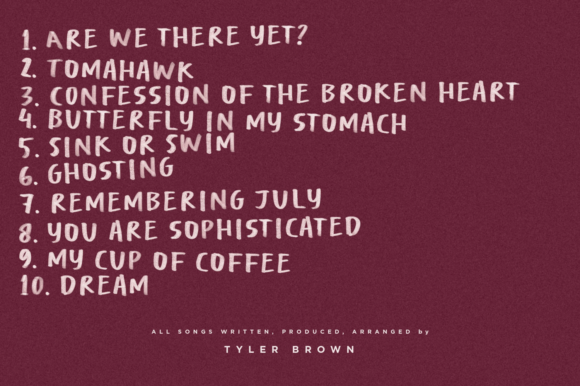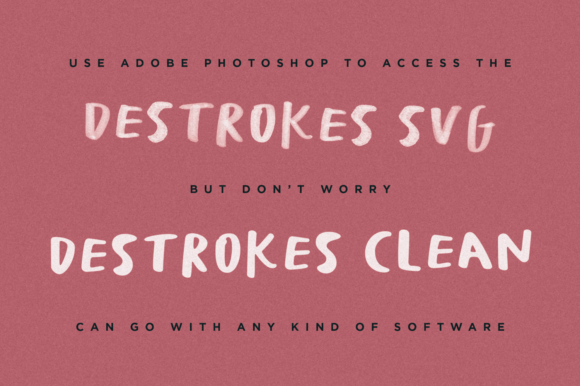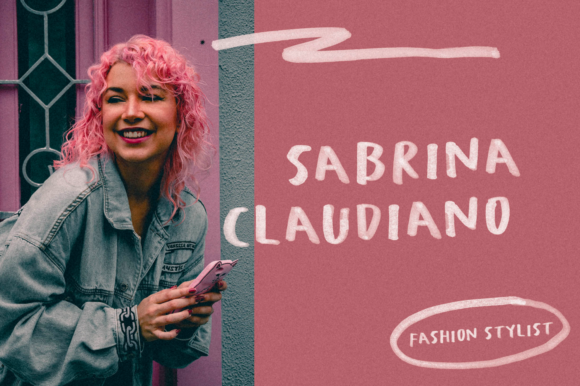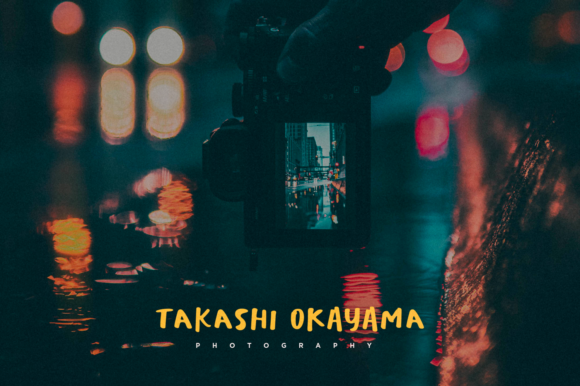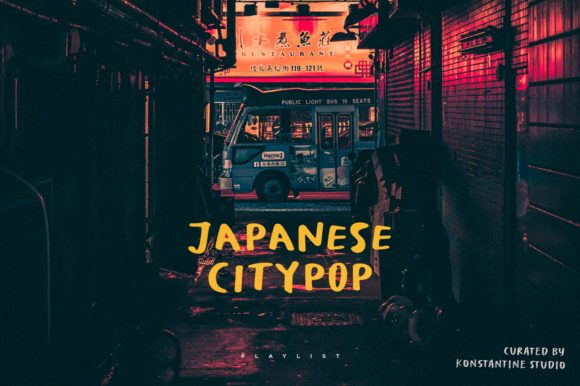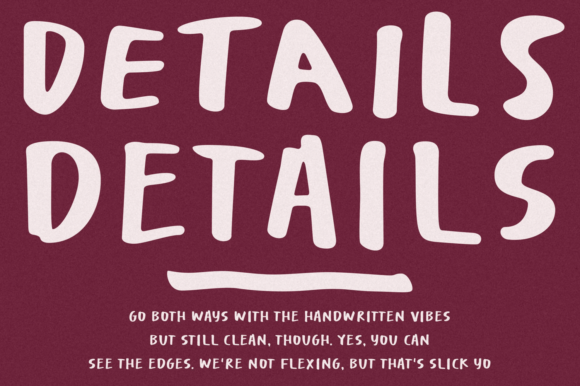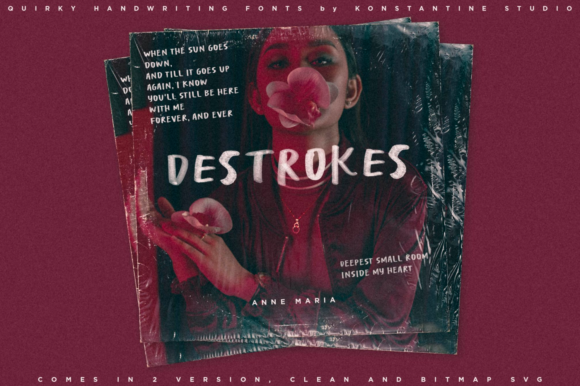
Introducing Destrokes Font: The Cool and Friendly Display Font for Your Creative Projects
Are you a designer or crafter looking for a font that can add a touch of personality to your creative projects? Look no further than Destrokes Font! This cool and friendly display font is perfect for a wide range of designs, from t-shirts and sportswear to logos, advertisements, clothing, and more.
What Makes Destrokes Font So Special?
Destrokes Font is a unique and versatile font that is sure to make your designs stand out. Its cool and friendly vibe makes it perfect for brands and designers who want to add a touch of personality to their work. The font is carefully crafted to be highly legible, making it easy to read and understand, even at smaller sizes.
One of the key features of Destrokes Font is its ability to be used in a wide range of designs. Whether you’re creating a logo, advertisement, or clothing design, this font is sure to fit the bill. Its friendly and approachable vibe makes it perfect for brands who want to connect with their audience on a more personal level.
Destrokes Font is a must-have for any designer or crafter looking to add a touch of personality to their work. The font is easy to use and can be easily integrated into a wide range of design software, making it perfect for:
• T-shirt designs: Add a touch of personality to your t-shirt designs with Destrokes Font.
• Sportswear designs: Create eye-catching sportswear designs with this cool and friendly font.
• Logo designs: Create a unique and memorable logo with Destrokes Font.
• Advertisements: Add a touch of personality to your advertisements with this versatile font.
• Clothing designs: Create eye-catching clothing designs with Destrokes Font.
Key Features of Destrokes Font
Here are some of the key features that make Destrokes Font so special:
• Cool and friendly vibe: Add a touch of personality to your designs with this unique font.
• Highly legible: Easy to read and understand, even at smaller sizes.
• Versatile: Perfect for a wide range of designs, from t-shirts to logos and advertisements.
• Easily integrable: Easy to use with a wide range of design software.
Why Choose Destrokes Font?
So why choose Destrokes Font for your next design project? Here are just a few reasons:
• Stand out from the crowd: With Destrokes Font, you can create designs that are truly unique and eye-catching.
• Add personality to your designs: This font is perfect for brands and designers who want to add a touch of personality to their work.
• Easily customizable: Destrokes Font is easy to customize, making it perfect for designers who want to create unique and personalized designs.
In conclusion, Destrokes Font is a cool and friendly display font that is perfect for designers and crafters looking to add a touch of personality to their creative projects. With its highly legible and versatile design, this font is sure to be a hit with brands and designers who want to create eye-catching and memorable designs. So why wait? Download Destrokes Font today and start creating amazing designs!
Whether you’re a seasoned designer or just starting out, Destrokes Font is a must-have for any creative project. Its unique and friendly vibe makes it perfect for a wide range of designs, from t-shirts and sportswear to logos and advertisements. So why choose a boring and generic font when you can add a touch of personality to your designs with Destrokes Font?
With Destrokes Font, the possibilities are endless! So go ahead, get creative, and see what amazing designs you can come up with using this cool and friendly display font.